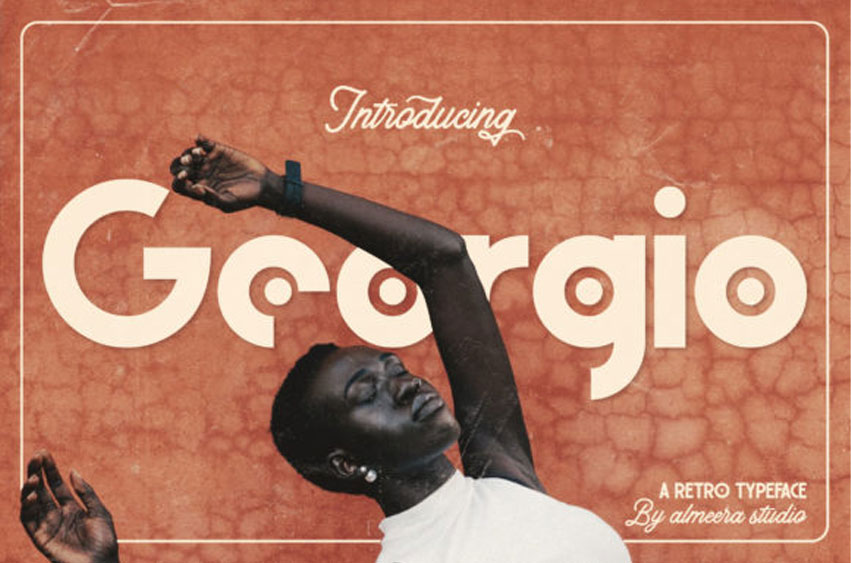
Georgio Font is a cool, modern, and uniquely designed display font.
This font is ideal for writing web designs, business cards, or pretty much anything else that requires a trendy touch.